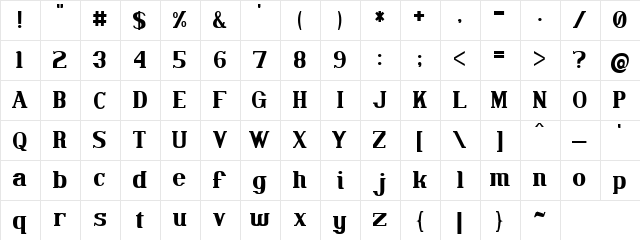
Smelly Gazebo Summer
Design Context for Smelly Gazebo Typeface
Smelly Gazebo is a composed and adaptable typeface that performs quietly and consistently across a wide range of design contexts.